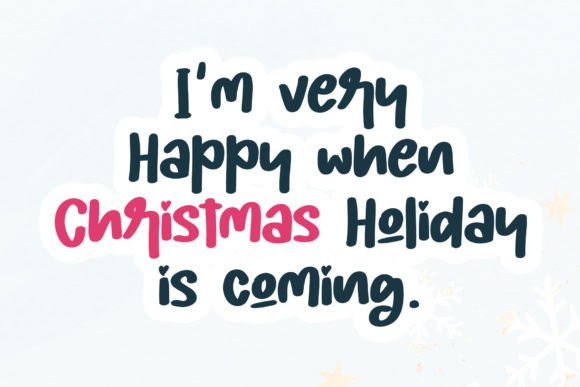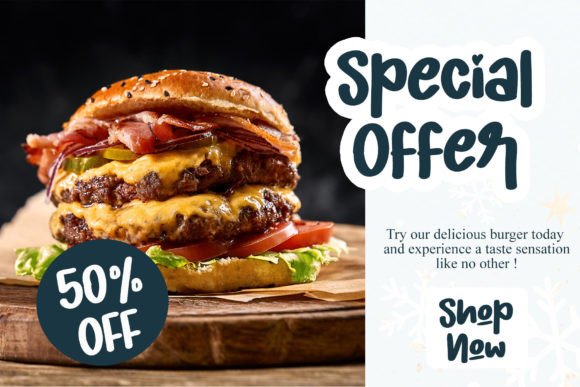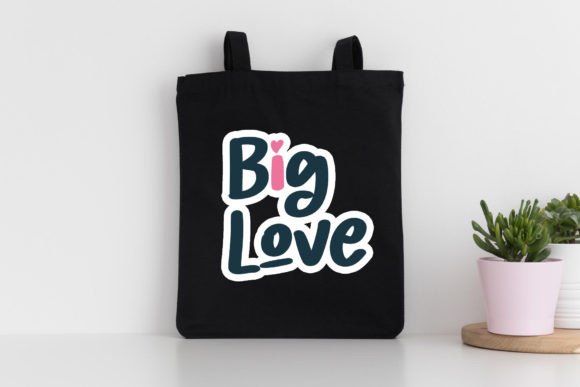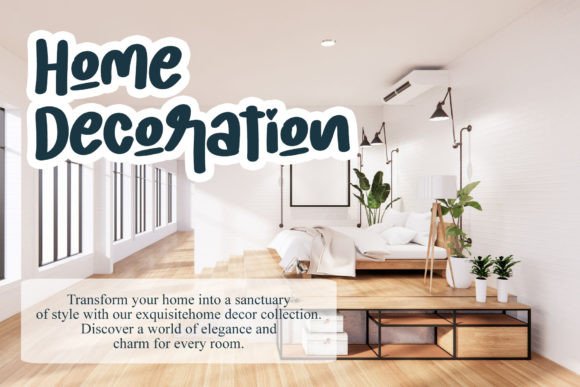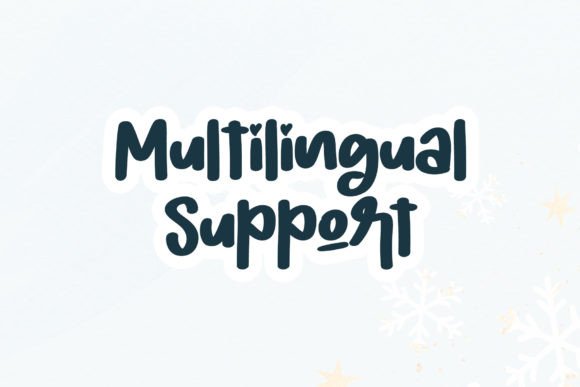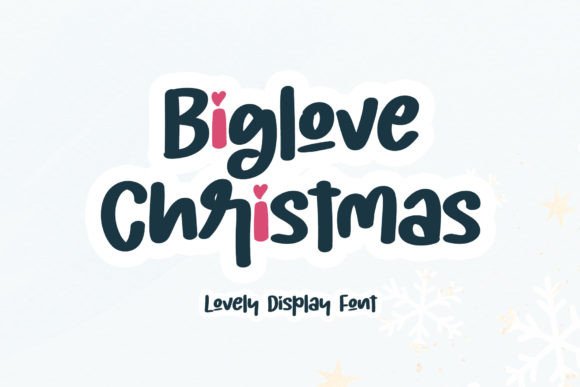
The Magic of Biglove Christmas Font: A Designer’s Delight
I still remember the holiday season project that had me stuck in a font rut. My client needed a festive and fun font for their Christmas-themed branding, but I was struggling to find the perfect fit. That’s when I stumbled upon Biglove Christmas, a lovely, cute, and fun display font that instantly captured the essence of the holiday season. In this article, I’ll share my experience with Biglove Christmas, its features, and how to make the most of it in your designs.
An Honest Review of Biglove Christmas
- ✨ Unique and playful design that’s perfect for Christmas-themed projects
- ✅ Highly legible, even at smaller sizes
- 🎉 Extensive character set, including support for multiple languages
- 💻 Great for both digital and print projects, from social media graphics to holiday cards
While Biglove Christmas is an excellent font, there are a few things to keep in mind:
- 🤔 Some characters, like the lowercase ‘g’ and ‘q’, have a slightly different design that might take getting used to
- ⚠️ Not ideal for body text, as it’s a display font meant for headlines and titles
The Backstory of Biglove Christmas
Biglove Christmas was designed with the holiday season in mind. The designer aimed to create a font that captured the fun and playfulness of Christmas, while still being legible and versatile. The result is a font that’s perfect for a wide range of creative projects, from letterheads and titles to stationery and social media graphics.
Q: What type of projects is Biglove Christmas best suited for?
A: Biglove Christmas is ideal for Christmas-themed projects, such as holiday cards, social media graphics, and branding materials.
Q: Is Biglove Christmas available in multiple languages?
A: Yes, Biglove Christmas has extensive language support, including multiple European languages.